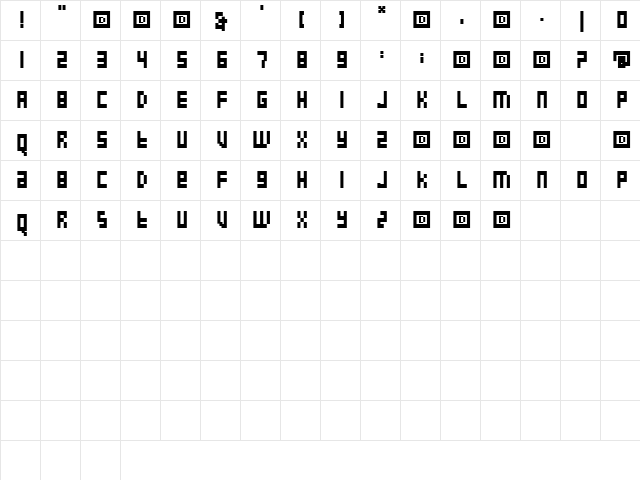
OneInchRock Regular
Design Context for OneInchRock Typeface
OneInchRock takes a measured approach to typography — its balanced proportions and neutral character make it a reliable workhorse for both digital and print work.